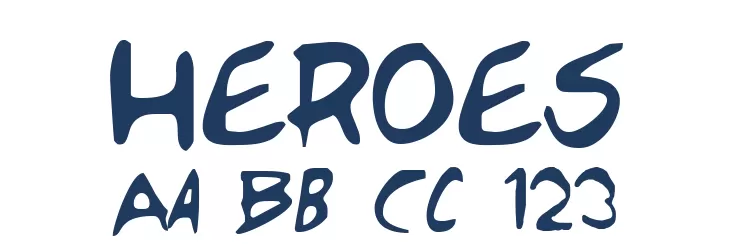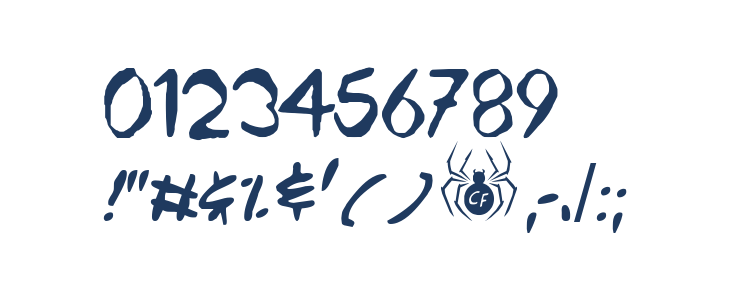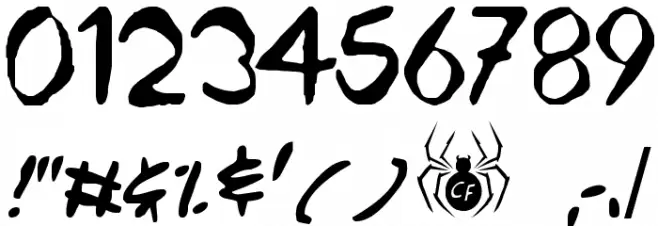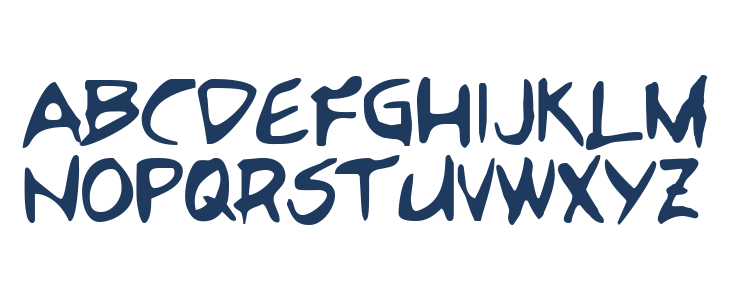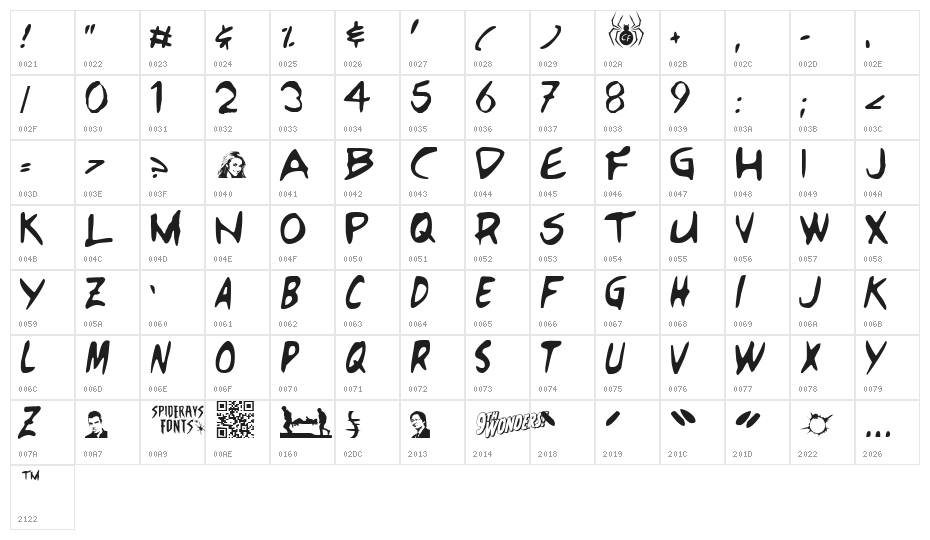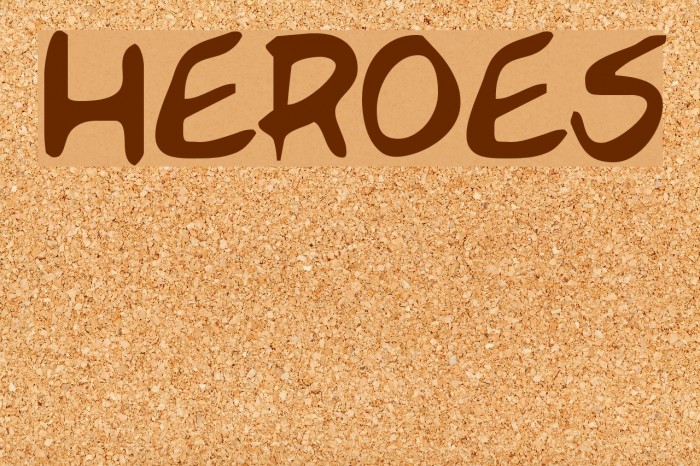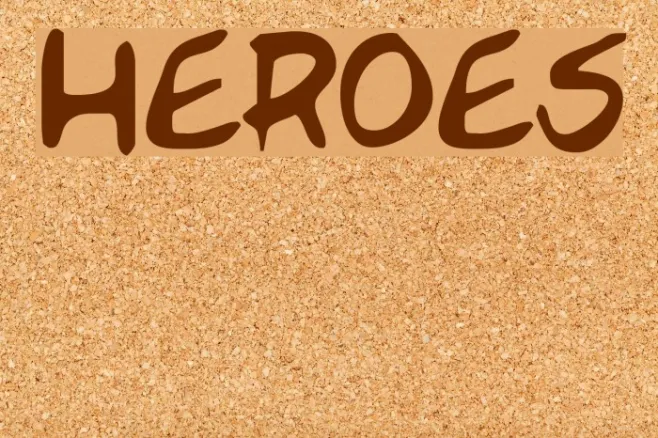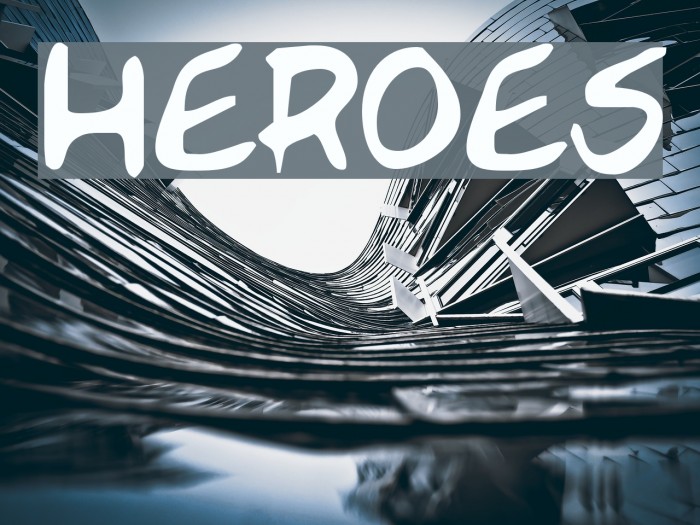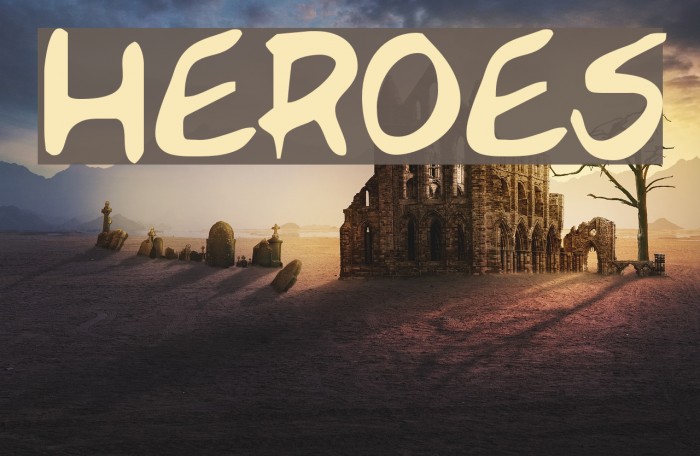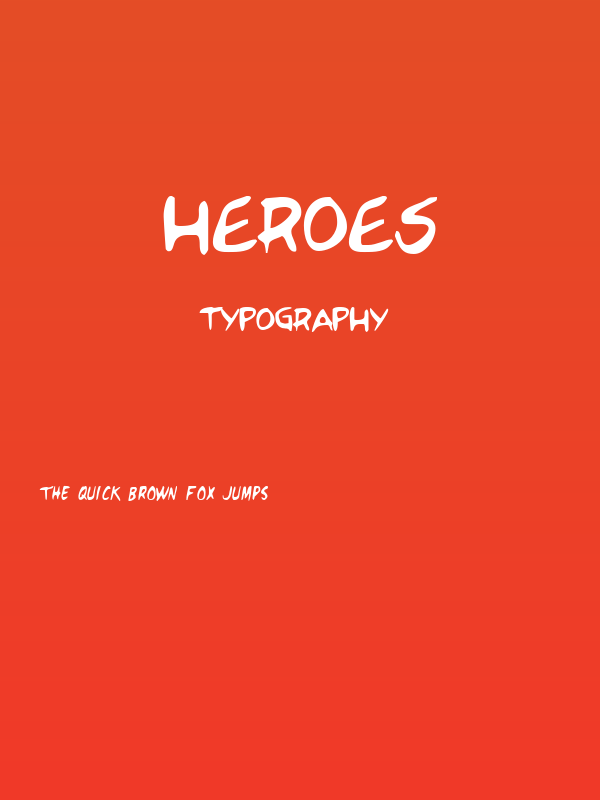
HEROES Font
HEROES Description
This font features a bold and dynamic style, characterized by its irregular and energetic strokes that convey a sense of movement and excitement. The uppercase and lowercase letters are crafted with a playful, hand-drawn aesthetic, giving them a unique and artistic flair. The numbers and special characters maintain this lively style, ensuring consistency across all elements. The font's design is reminiscent of comic book lettering, making it ideal for projects that require a touch of creativity and boldness. Its distinctive appearance is sure to capture attention and add a dramatic impact to any design.
A bold, hand-drawn font with an energetic and dynamic style from Comic fonts.